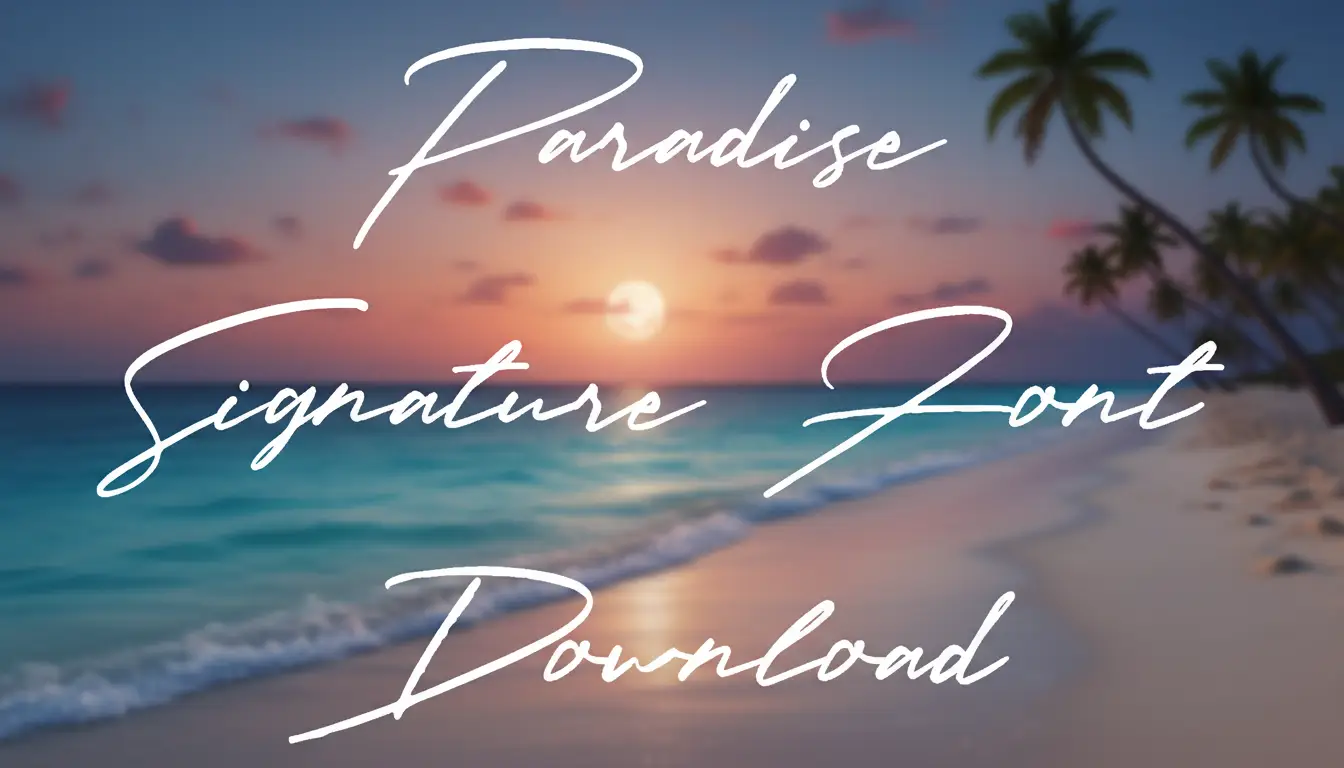
Paradise Signature is an elegant, modern cursive script typeface designed by Graphicfresh (Muhammad Husni Haikal). Created from manual, handwritten artwork, it replicates a fluid personal signature with variable stroke thickness, smooth transitions, and natural loops.
Paradise Signature
Paradise Signature is a handwritten font made by Muhammad Husni Haikal. The letters have the small wobbles and personality of real handwriting, so your text feels warm instead of printed. You can download it for free and test it with your own words in the preview above.
- Designer: Muhammad Husni Haikal
What You Can Type With Paradise Signature
With complete upper and lowercase letters and all ten digits, Paradise Signature is ready for real wording, not just a single headline. Common punctuation such as !, ?, @ and # is included as well. It has 4 accented letters, but not the full set for Spanish or French, so test any non-English words first.
Where Paradise Signature Works Best
Designers usually reach for fonts like Paradise Signature when they're making greeting cards, journal pages and friendly social posts. Its lowercase letters are small compared to the capitals, so set it a size or two bigger than usual. Set it a bit larger than you would a normal text font. Handwriting styles lose their charm once they get too small to read comfortably.
Who designed Paradise Signature font?
Does Paradise Signature support accented letters?
Partly. Paradise Signature has 4 accented letters, but not the complete set for Spanish, French or German. Type your words in the preview above to check before you use it.